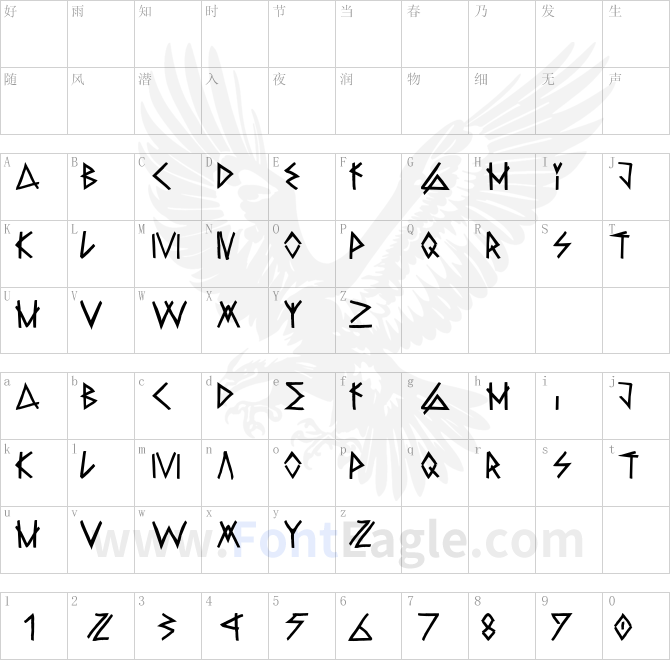
- Font name:Raw Delta Hand Street
- Font Subfamily ID:ManuelViergutz: Raw Delta Hand Street: 2012
- Font Full Name:RawDeltaHandStreet
- Postscript:RawDeltaHandStreet